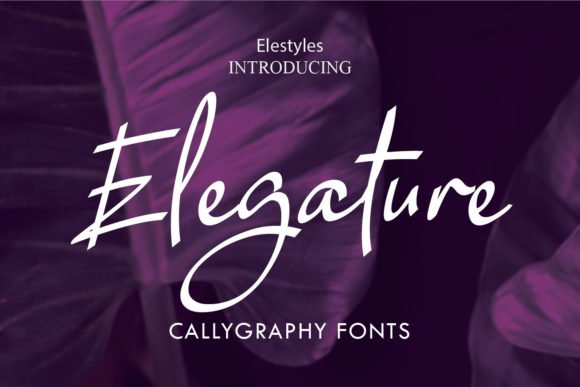
Unlock the Magic of Handwritten Charm
Do you remember the thrill of discovering a unique font that captures the essence of your creativity? For many designers, it’s the moment when a project comes together, and the perfect typography makes all the difference. That’s exactly what happens when you incorporate the Elegature Font into your next crafting project.
This gorgeous script was carefully crafted using a thin pen, giving it a truly authentic feel. Whether you’re designing a wedding invitation, a birthday card, or a personal journal, Elegature Font effortlessly adds a charming vibe that will leave a lasting impression. For designers, Elegature Font is a valuable tool that brings a touch of elegance and sophistication to any project, making it a must-have in their digital toolbox.
Elegature Font Key Features
- Font Family: Elegature Font is a high-end script font designed for elegant and sophisticated typography.
- Character Count: The font family includes 400+ glyphs, including Latin, Cyrillic, and Greek alphabets, ensuring versatility in multilingual designs.
- Unique Characteristics: Elegature Font features beautiful swashes, elegant flourishes, and subtle variations in letterforms, making it perfect for high-end branding, invitations, and luxury packaging.
Elegature Font Review
I recently had the chance to work with the Elegature Font, and I must say, it’s a beautiful addition to any design project. ✨ The font’s elegant curves and refined lines make it perfect for creating a sophisticated and luxurious feel.
Here are some of the things I like about the Elegature Font:
- ✨ High-quality rendering, making it ideal for printing and digital use.
- ✨ Excellent legibility, even at smaller font sizes.
- ✨ A wide range of weights and styles to choose from, making it versatile and adaptable to various design needs.
- ⚠️ Limited language support, which may be a concern for projects that require multilingual support.
- ⚠️ Some users may find the font’s elegance too refined, making it difficult to read for those with visual impairments.
Overall, I’m impressed with the Elegature Font’s potential and its ability to elevate any design project. While it may have some limitations, its strengths far outweigh its weaknesses. I would definitely recommend it to designers looking to create high-end, luxurious designs.
Elegature Font: A Practical Application Guide
Tips for Getting the Most Out of Elegature Font
For the best results, use Elegature Font in combination with a simple background and plenty of whitespace. This will help the font stand out and create a clean, elegant look.
Elegature Font is perfect for:
- Menus and other print materials